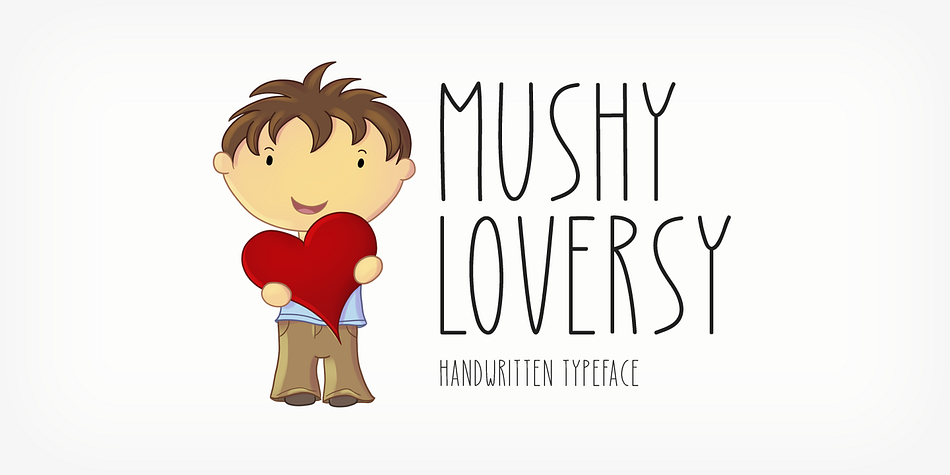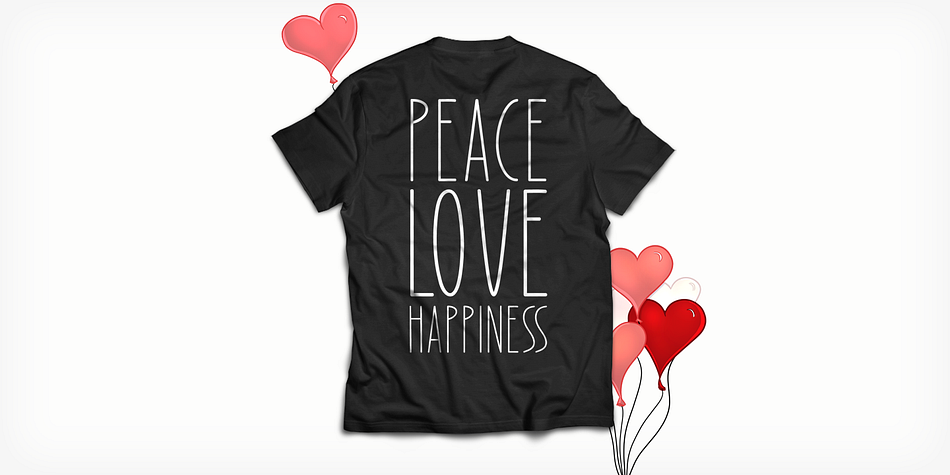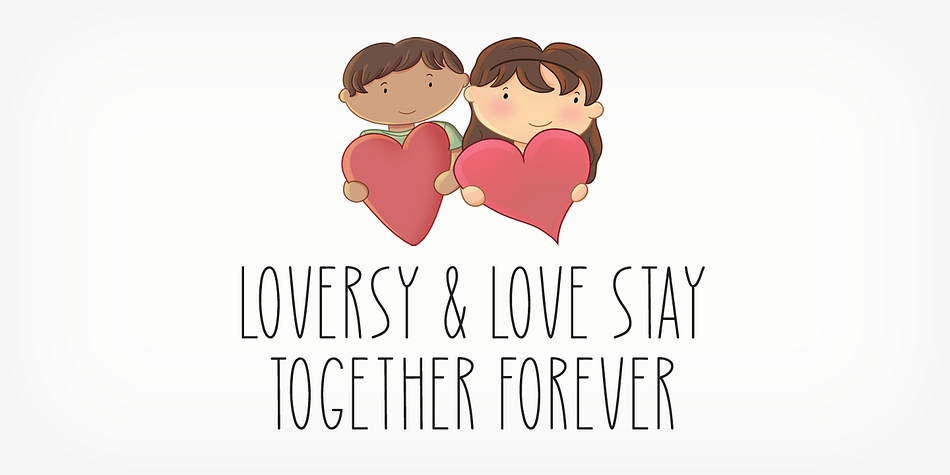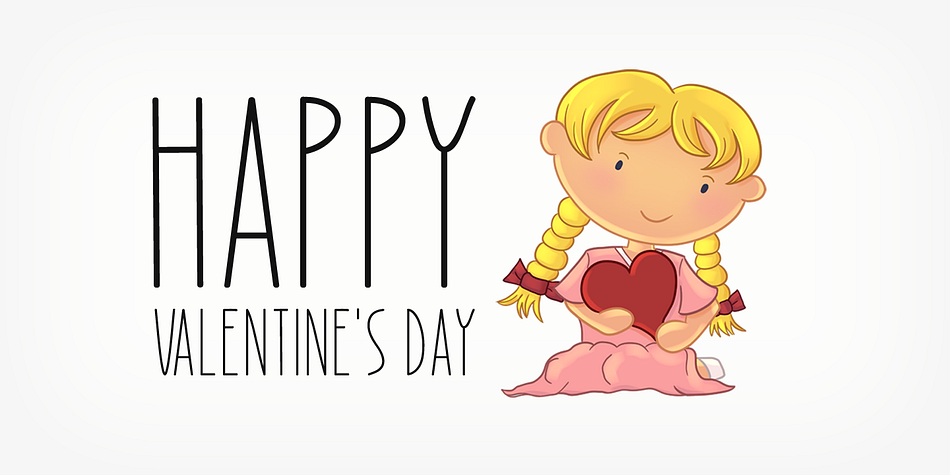
Designed by Md. Shohail Bhuiyan, Mushy Loversy is a hand drawn font published by Seemly Fonts.
Mushy Loversy is a sweet and thin handwritten font. It can easily be matched to an incredibly large set of projects, so add it to your creative ideas and notice how it makes them stand out!